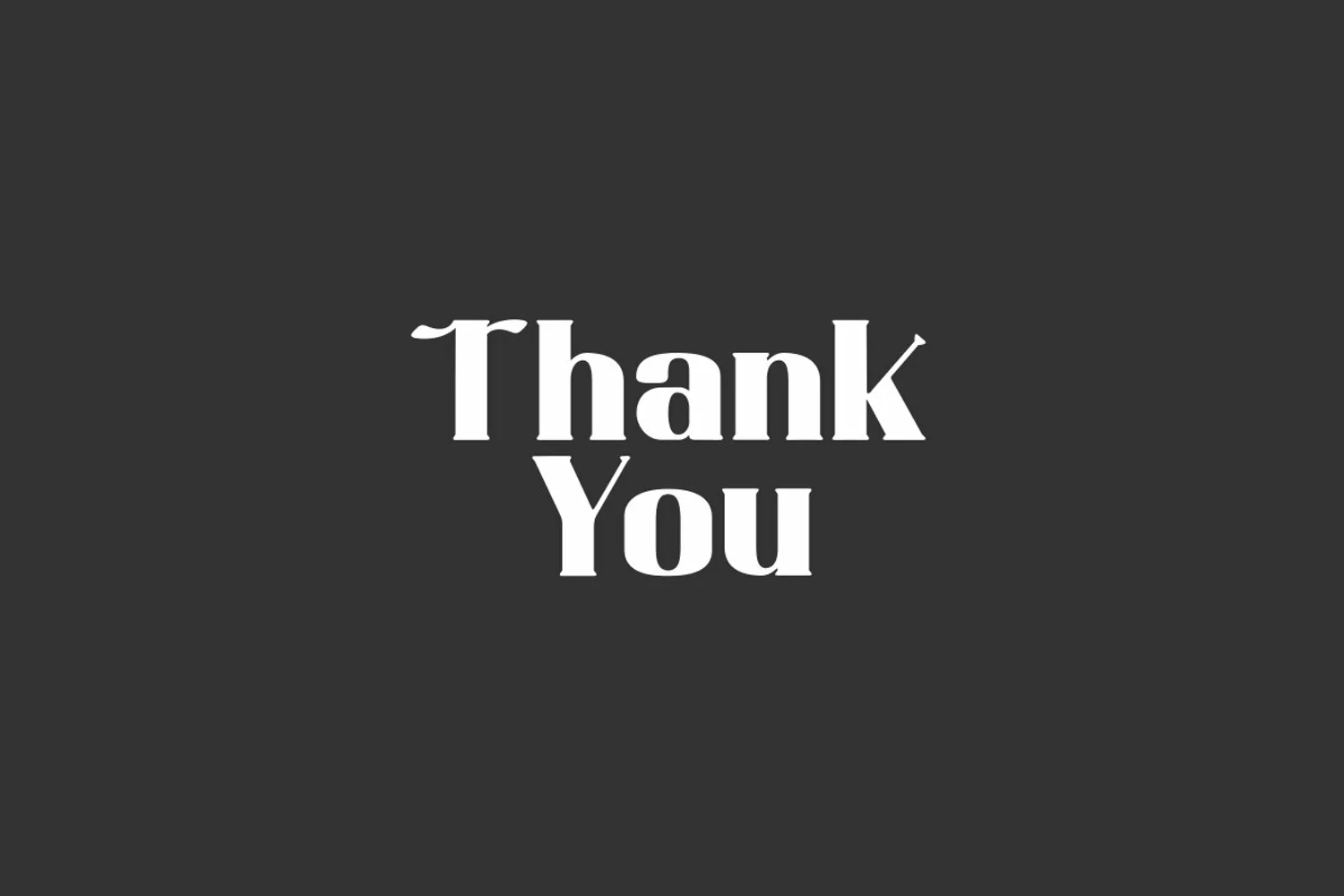
Bongaty is a modern serif font. It has an elegant and playful look that can be used for logos, branding, invitations, stationery, wedding designs, social media posts, and so much more.